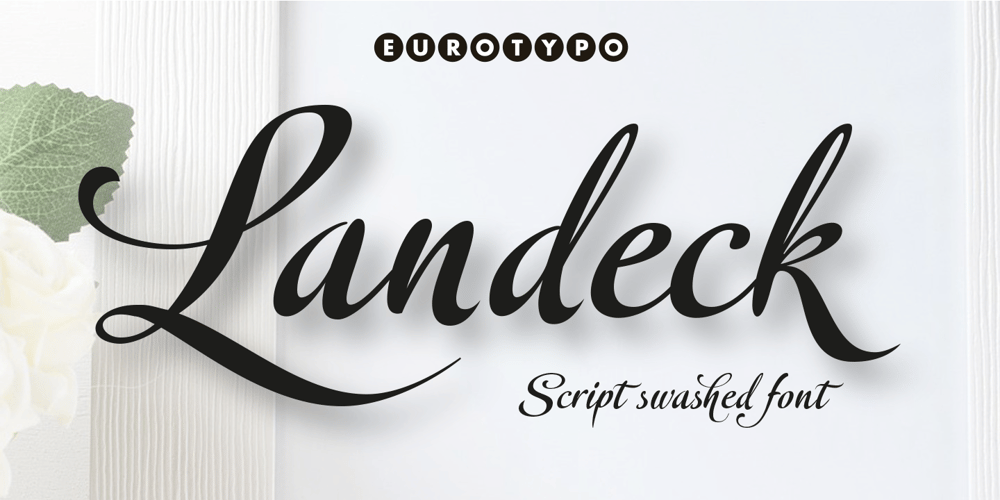
Landeck Font Family was designed by Olcar Alcaide and published by Eurotypo. Landeck contains 1 styles and family package options. Landeck is an organic script font dramatically slanted giving a dynamic speedy direction. Specially designed for use in logotypes, advertising and packaging. It is interesting to note the use of free-flowing lettering to perform its own eye-catching, connected and unconnected.Landeck contain 473 glyphs with full OpenType features: swashes, ligatures, stylistics alternates and much more.